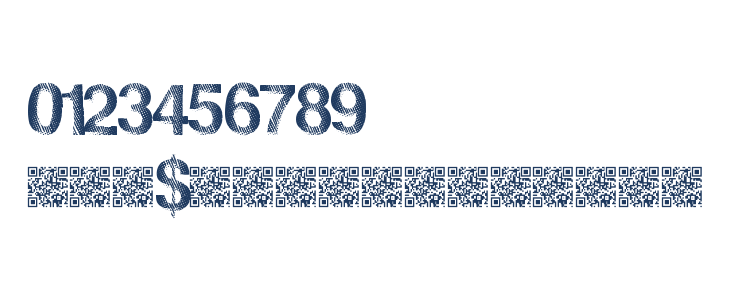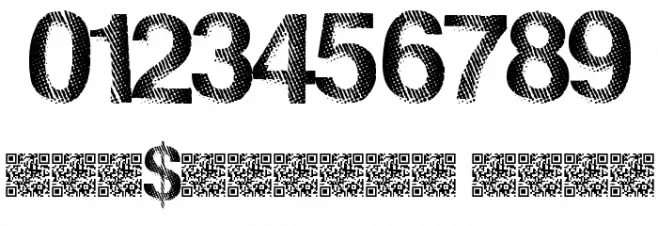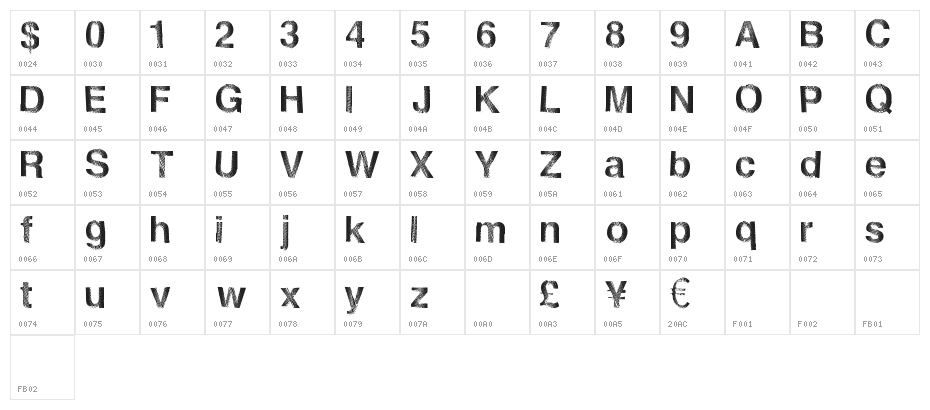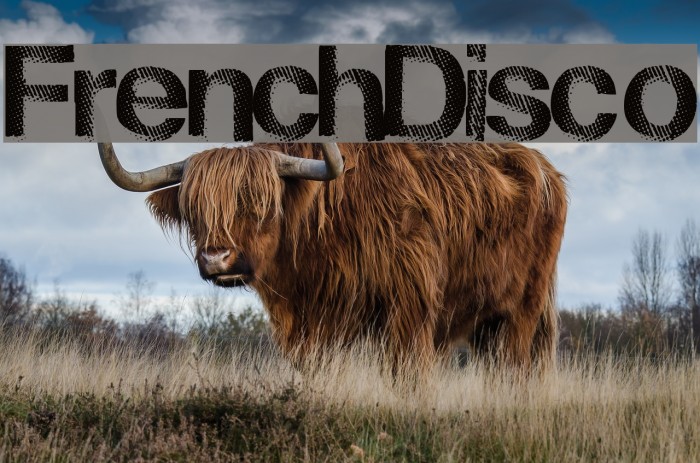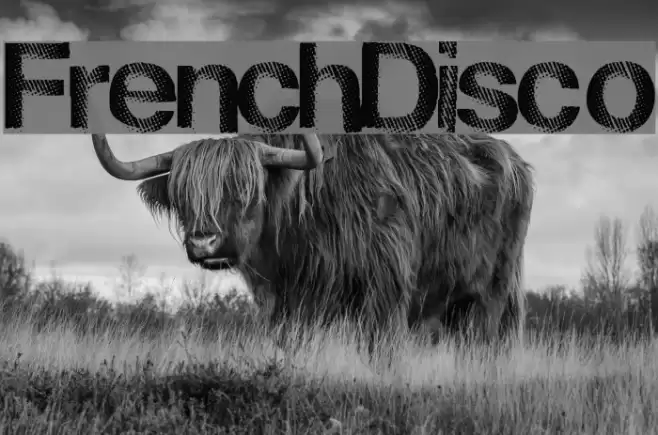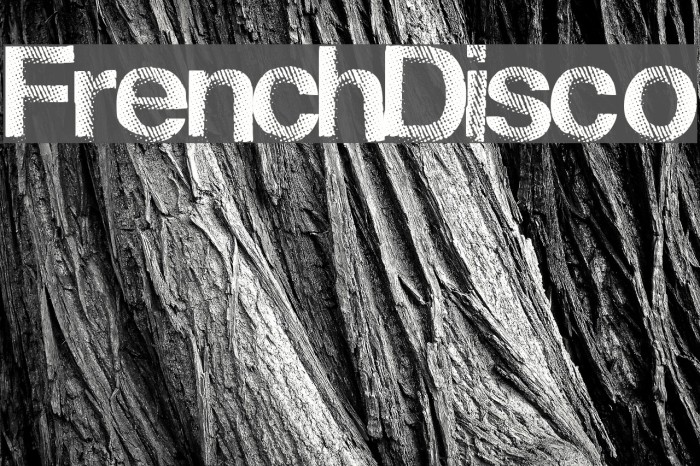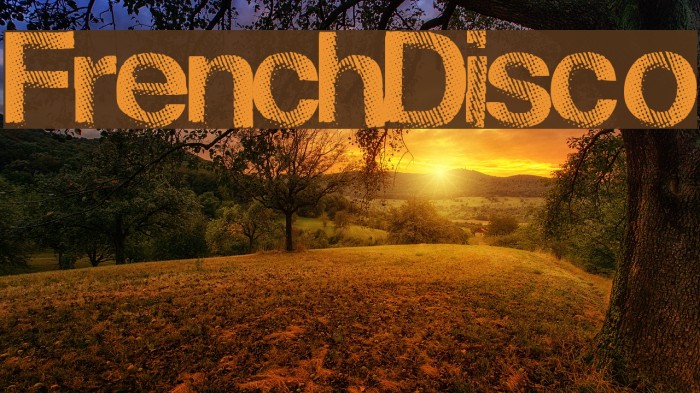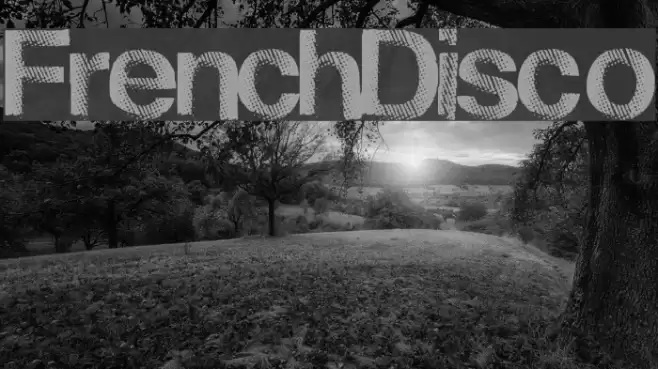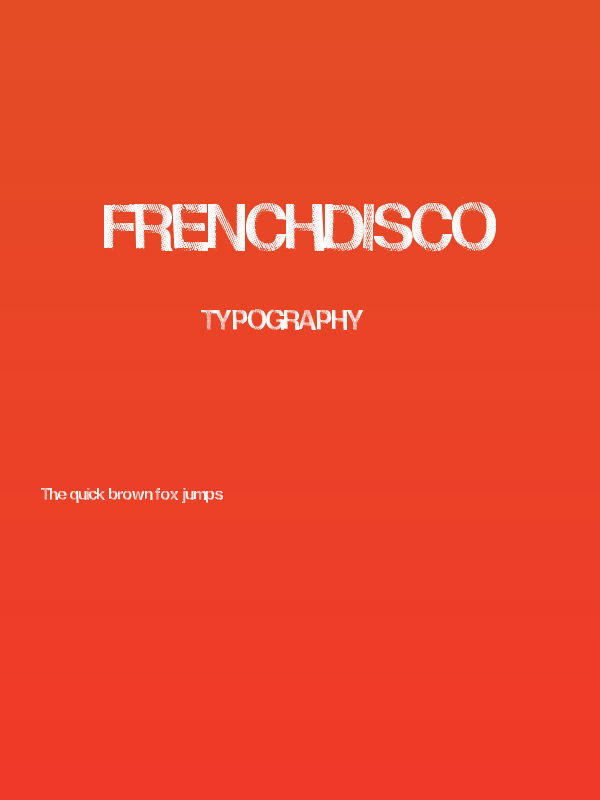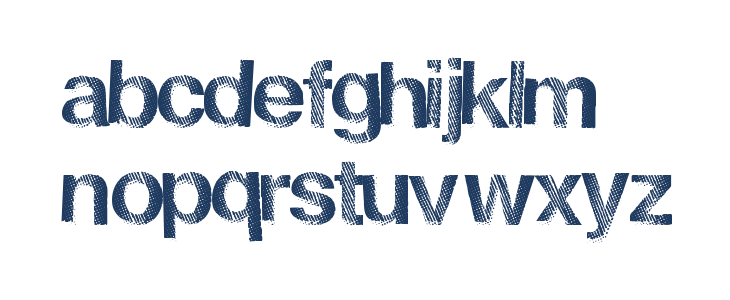
FrenchDisco Font
FrenchDisco Description
This font features a bold and dynamic style with a distinct halftone pattern, giving it a retro, disco-inspired appearance. The characters are uppercase and lowercase, with numerals and a selection of special characters. The halftone effect creates a sense of movement and energy, making it ideal for eye-catching designs. The bold weight and unique texture make it stand out, while the geometric shapes of the letters maintain readability. This font is perfect for projects that require a vintage or playful aesthetic, such as posters, album covers, or branding for creative industries.
| Proposed Projects | Ideal for posters, album covers, branding, and creative industry designs. |